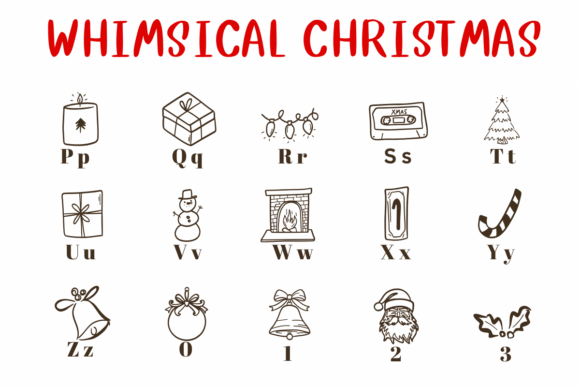
Whimsical Christmas Font
Whimsical Christmas is a charming dingbats font filled with playful, hand-drawn holiday illustrations that capture the warmth and cheer of the festive season. Each character corresponds to a delightful Christmas-themed doodle—ranging from candy canes, snowmen, gingerbread cookies, gifts, and Santa heads to cozy fireplaces, ornaments, bells, and tree decorations. The illustrations feature a light, sketchy line style that feels casual and friendly, perfect for designs aimed at children, families, or nostalgic holiday branding.
Ideal for Christmas cards, gift tags, advent calendars, social media graphics, craft projects, and seasonal packaging, Whimsical Christmas brings a sense of joy and storytelling with every keystroke. The combination of simplicity and expressive linework makes it both versatile and irresistibly festive.